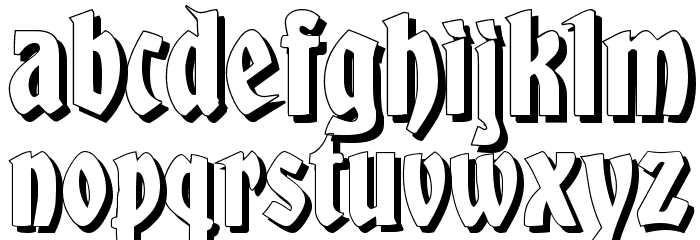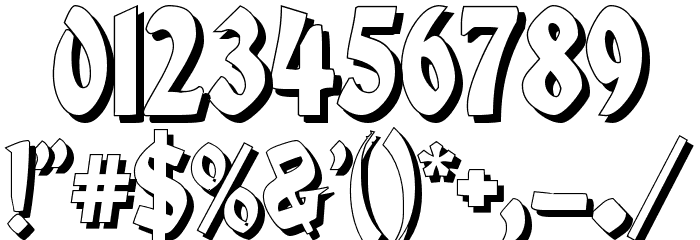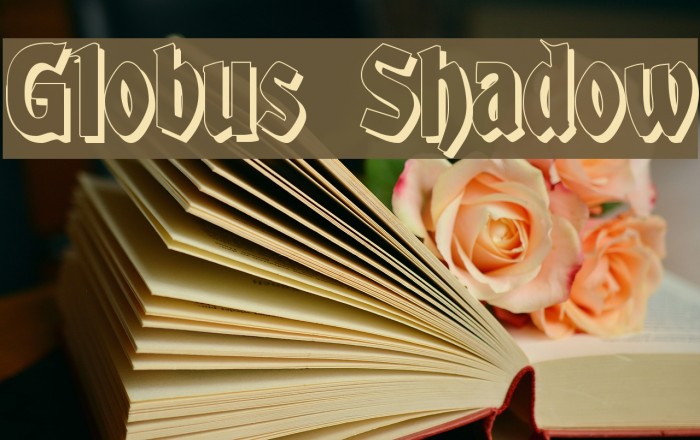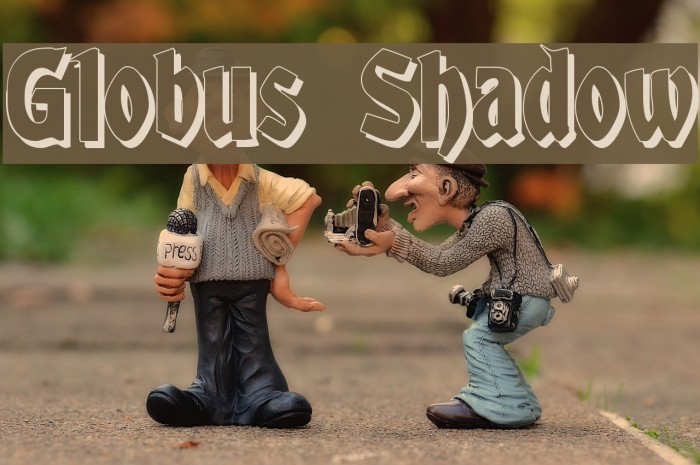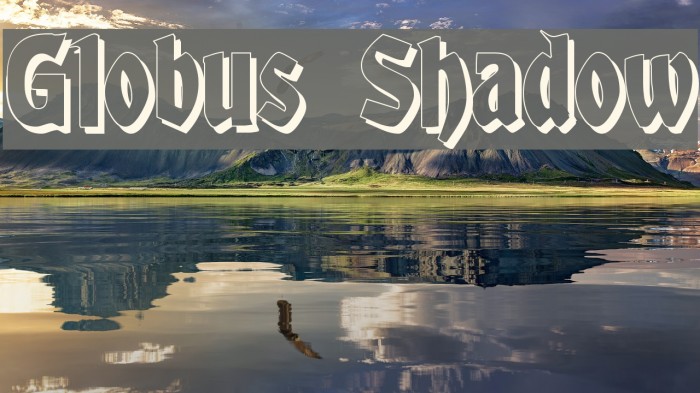
Globus Shadow Font
This font features a bold and dramatic style with a distinct shadow effect that gives it a three-dimensional appearance. The characters are robust and have a strong presence, making them ideal for attention-grabbing designs. The uppercase letters are particularly striking, with sharp angles and a slight curvature that adds a touch of elegance. The lowercase letters maintain the boldness of the uppercase, ensuring consistency across the typeface. Numbers and special characters are equally bold, ensuring they stand out in any composition. The shadow effect adds depth, making the text appear as if it is lifted off the page, which enhances its visual impact.
A bold, shadowed font with a three-dimensional effect, perfect for striking designs.
- Proposed Projects: Ideal for posters, logos, headlines, and any design requiring a bold statement.